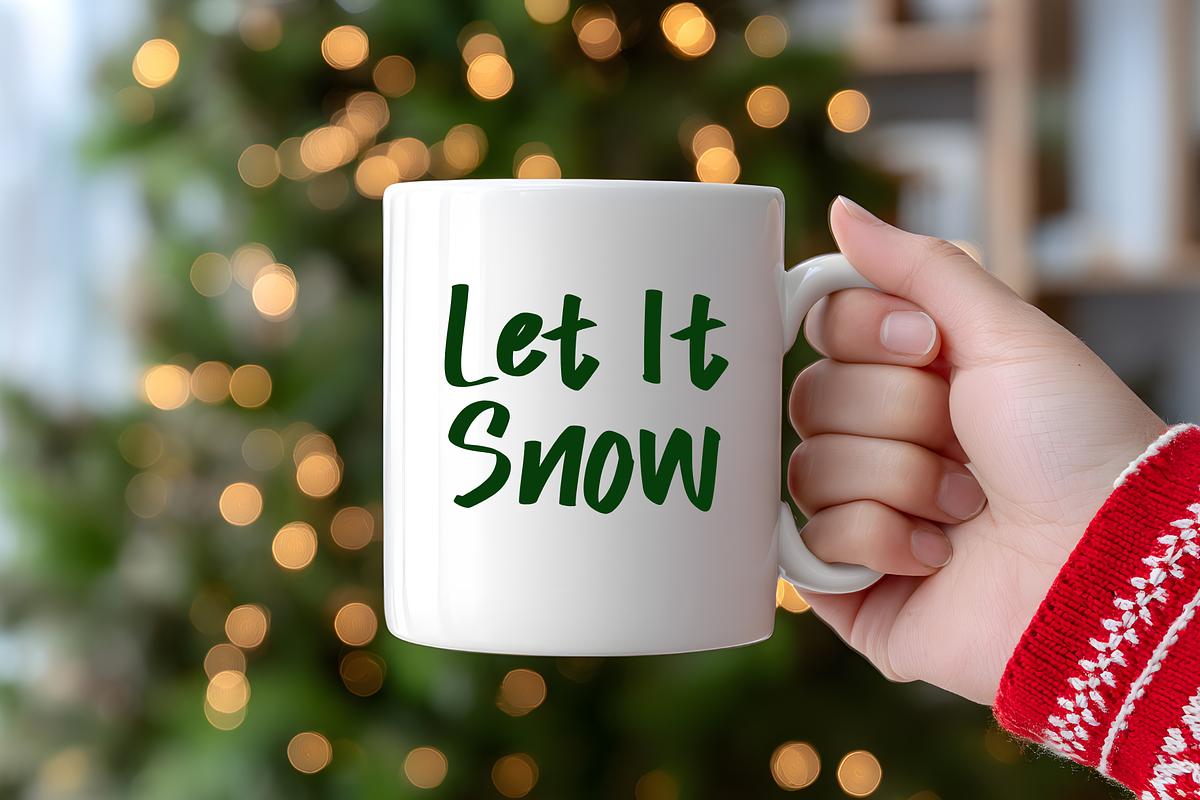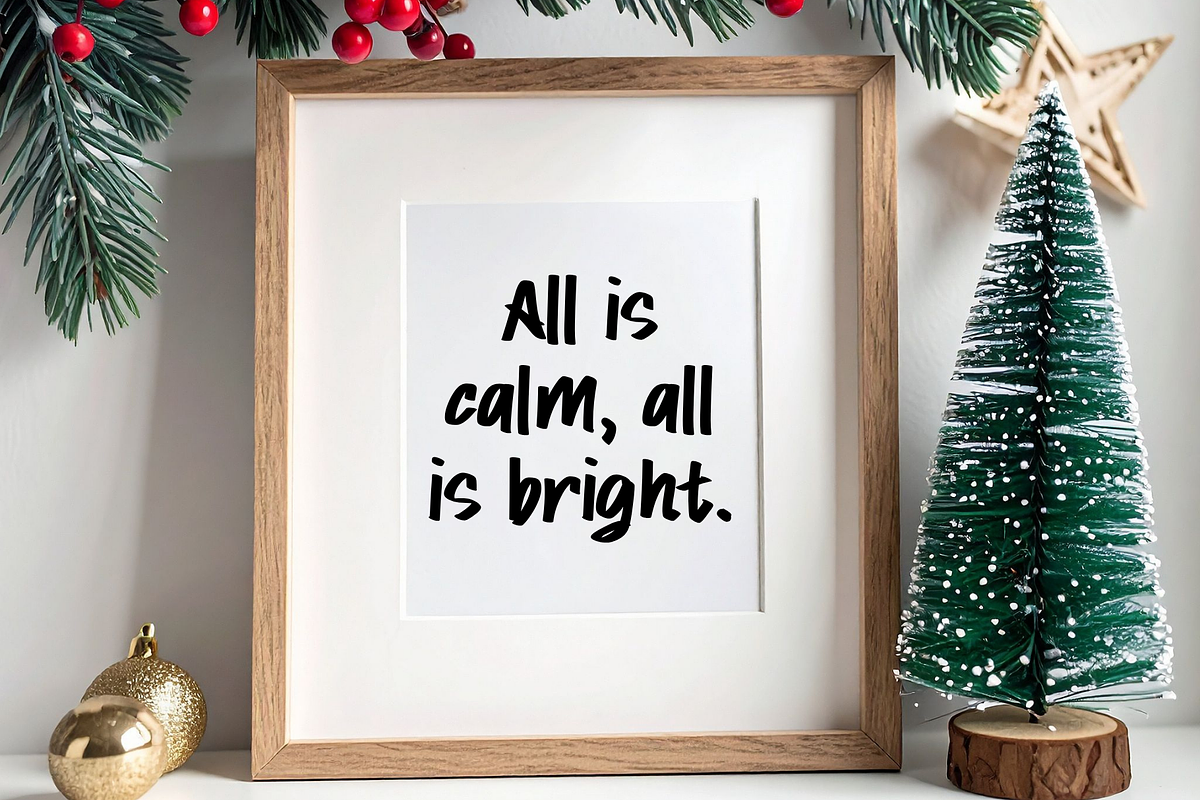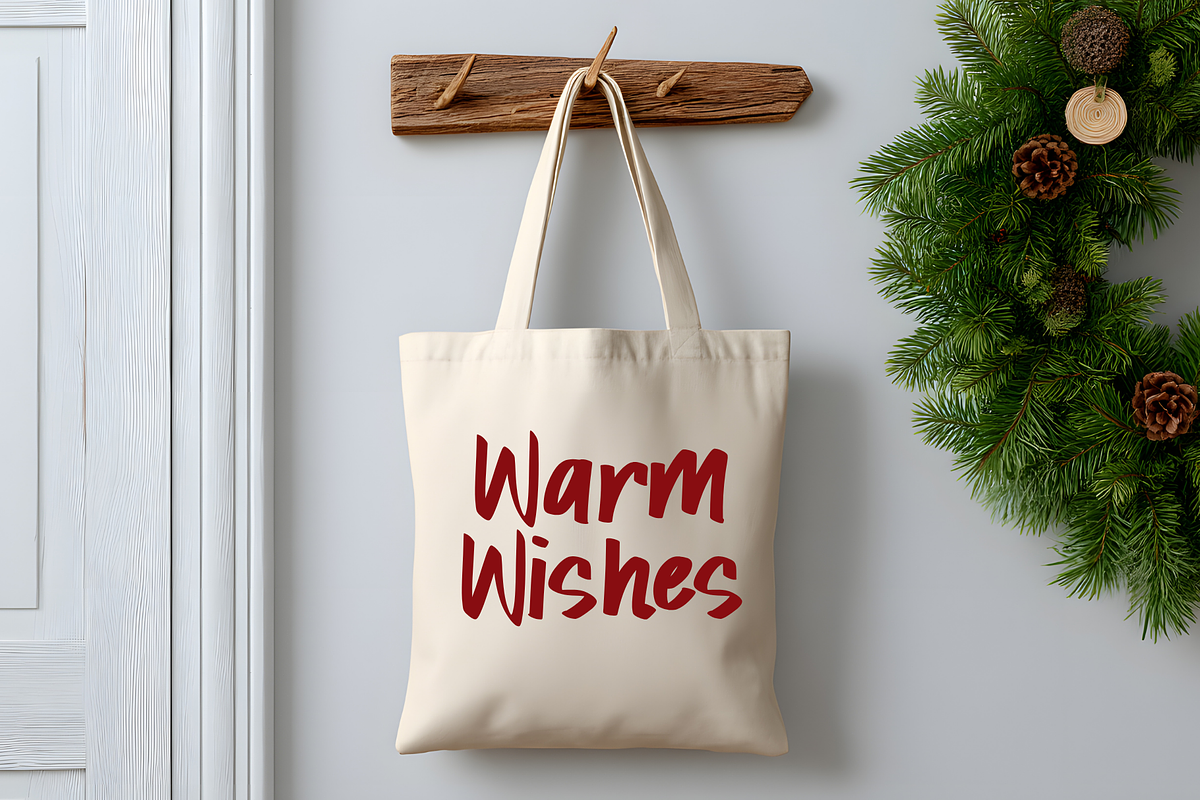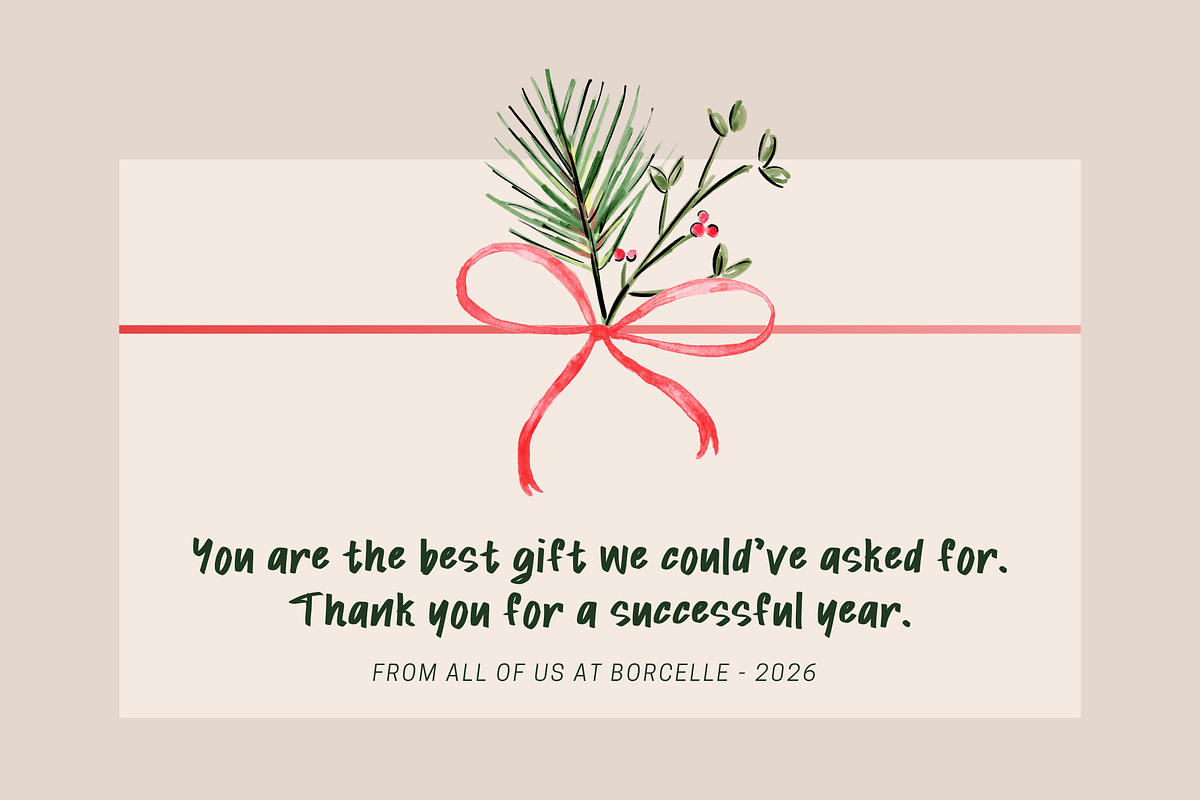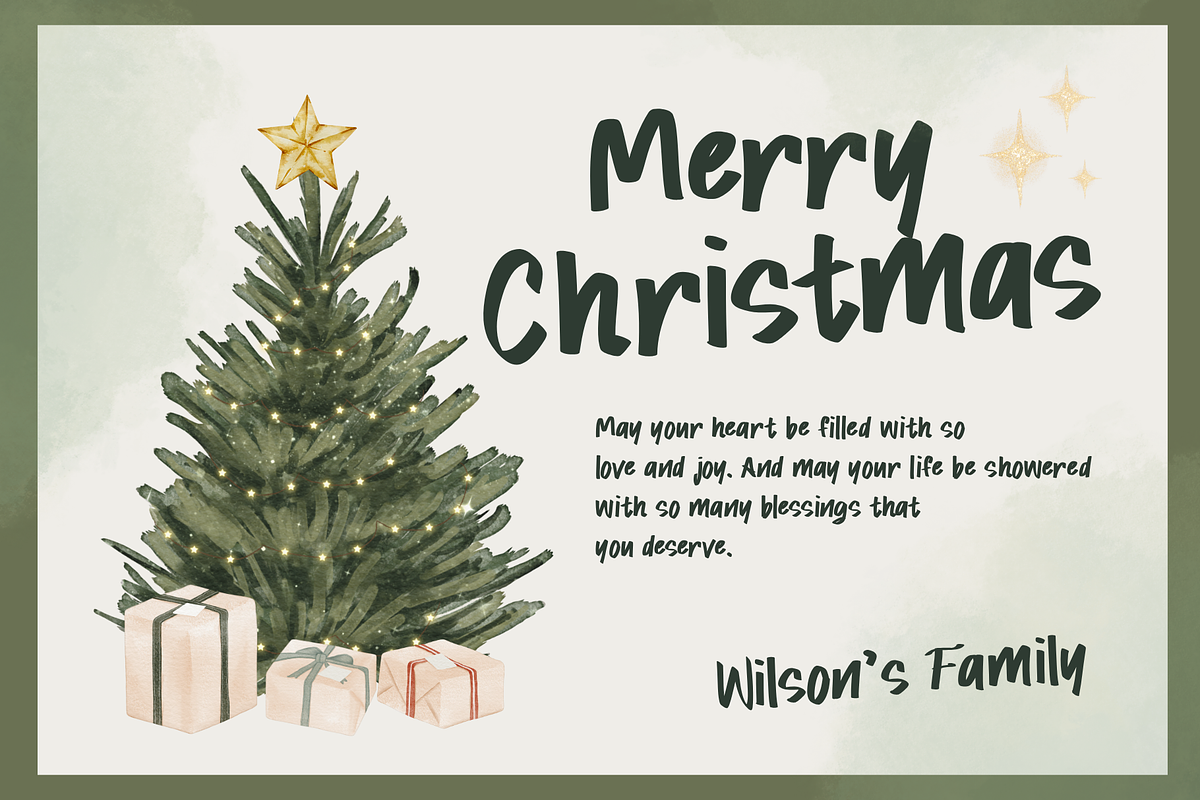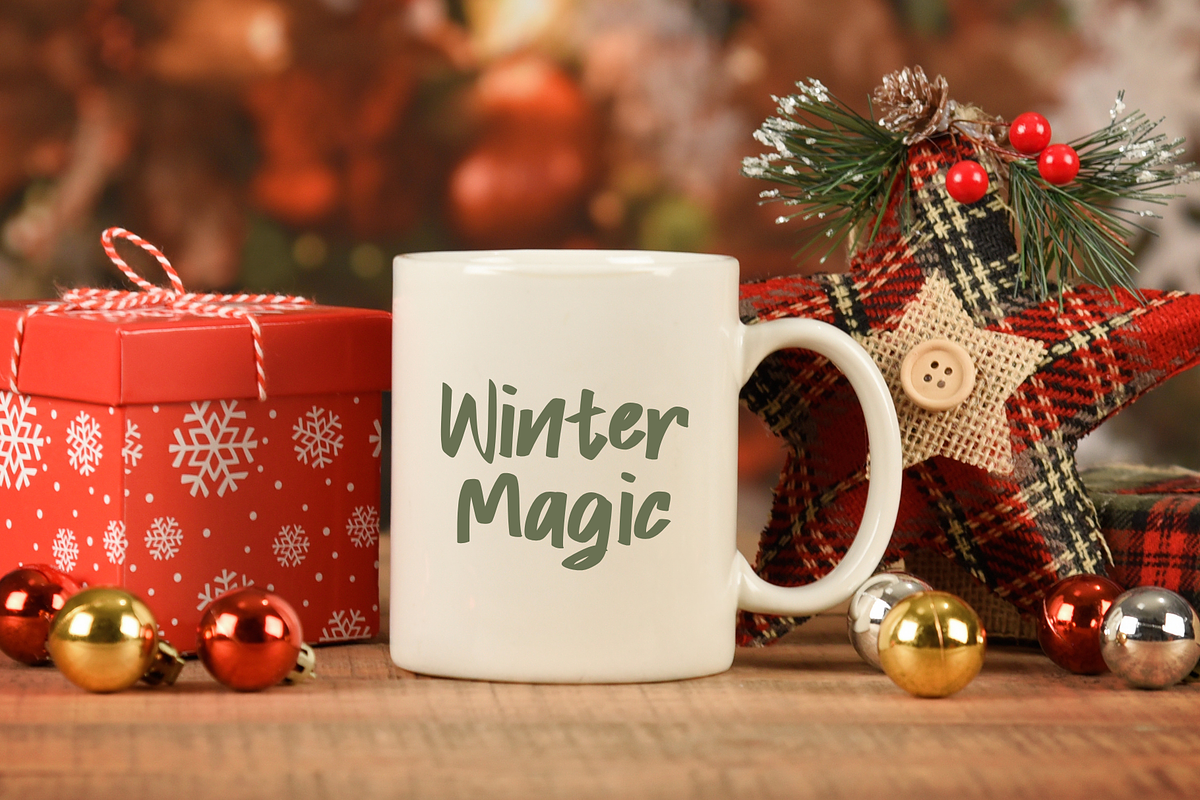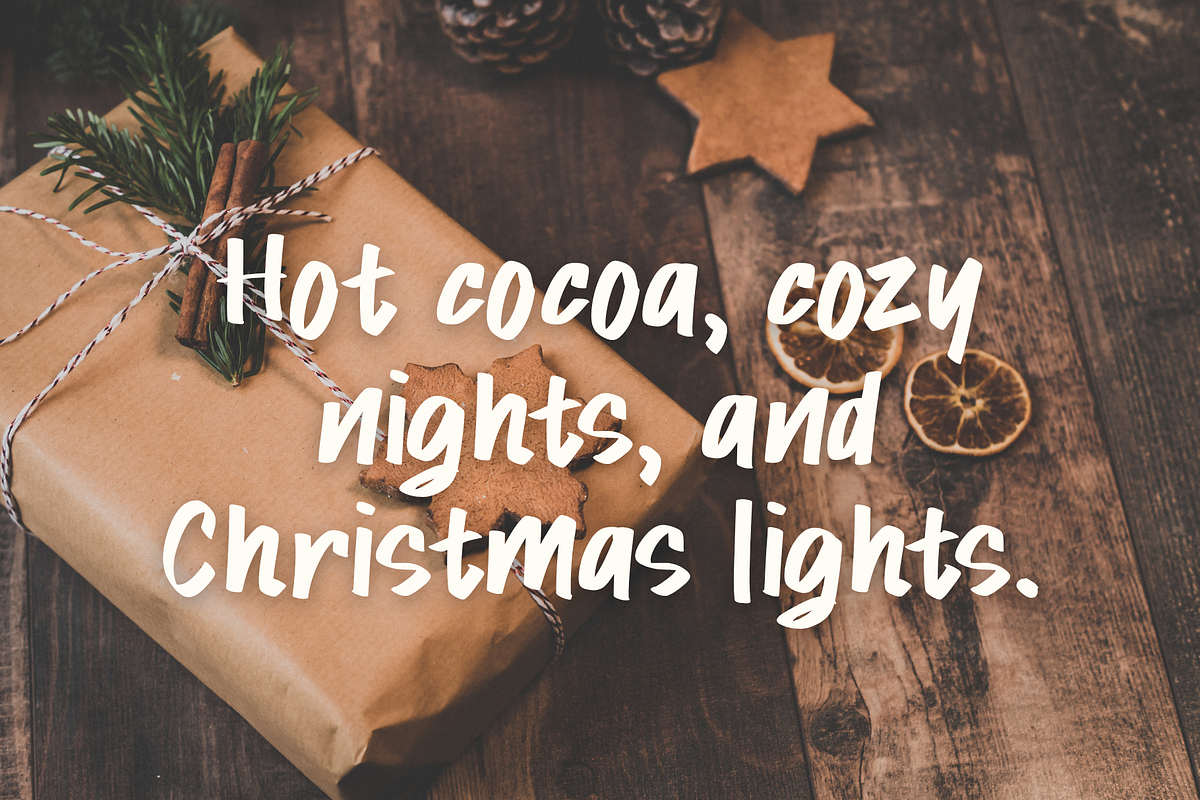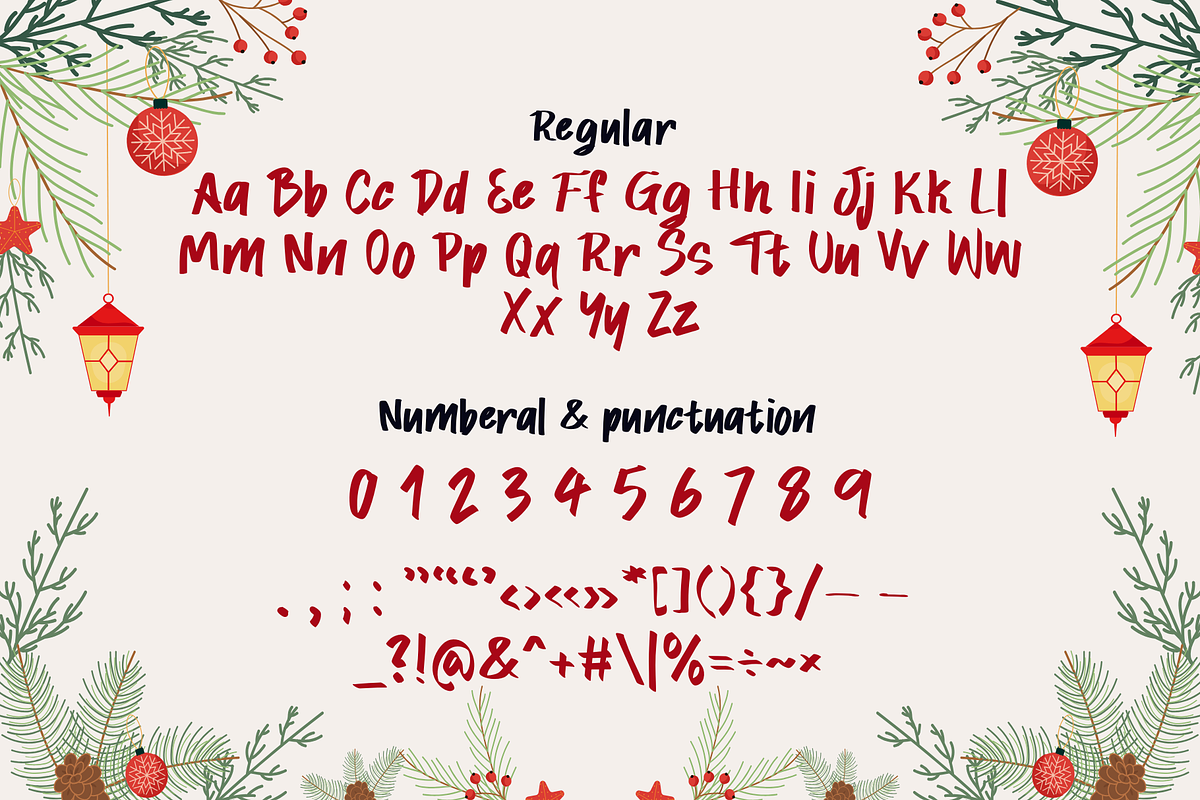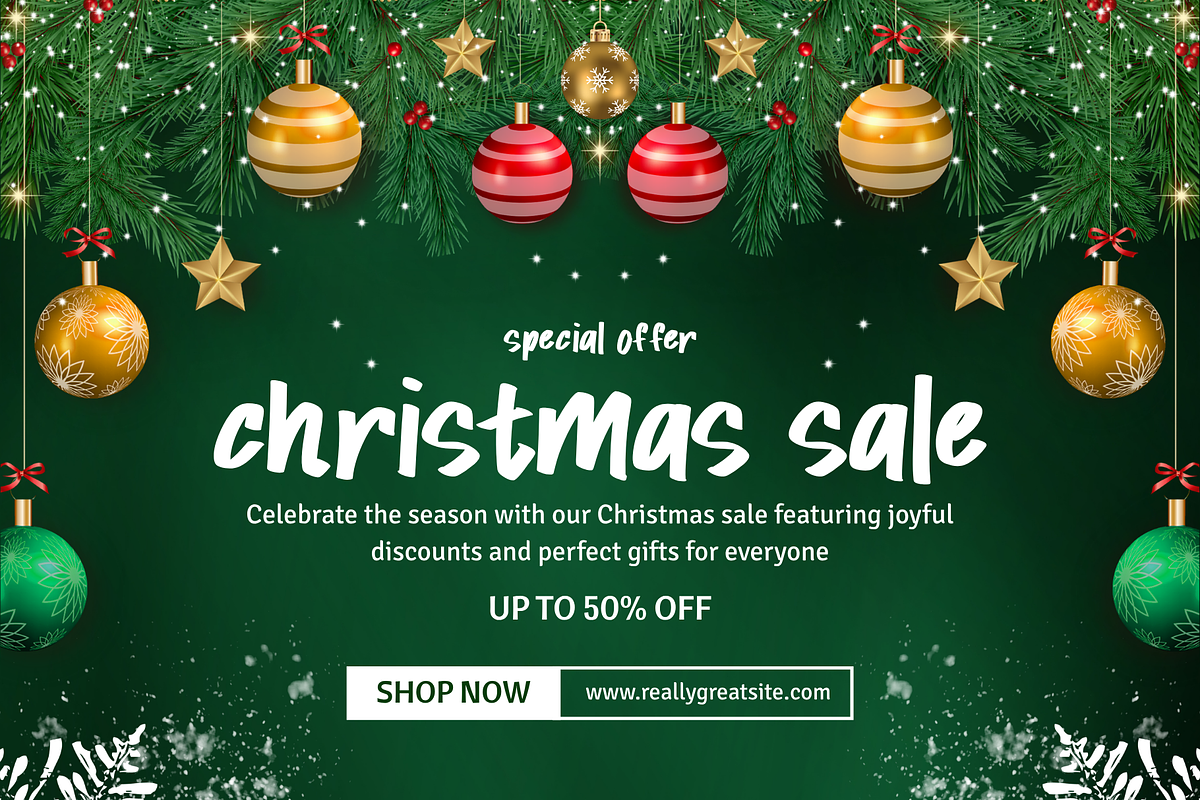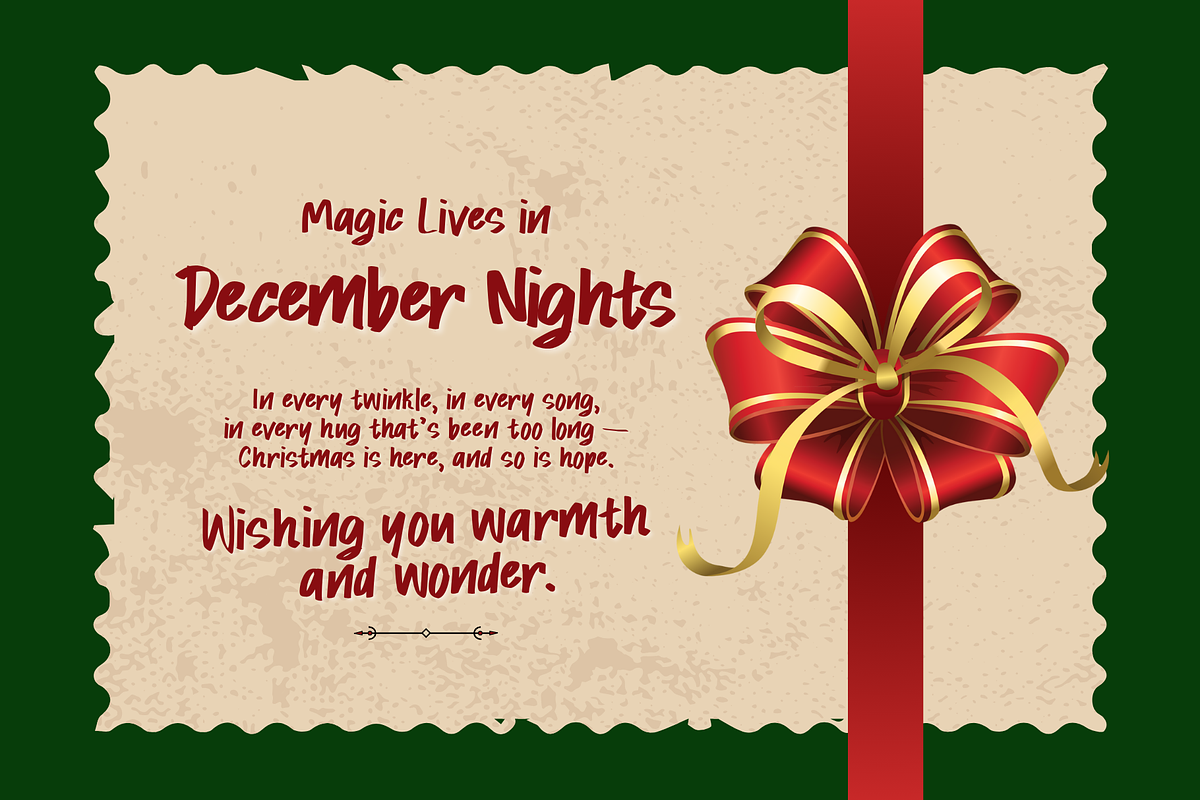
Snowy Giggles is a Christmas font
Snowy Giggles is a Christmas handwritten font. It embodies playfulness and authenticity and is the perfect choice for all your favorite projects such as blog posts, logos, branding, ads, invitations, greeting cards, planners, photo albums, decorations, and more. Add it to any of your designs, and enjoy the results!